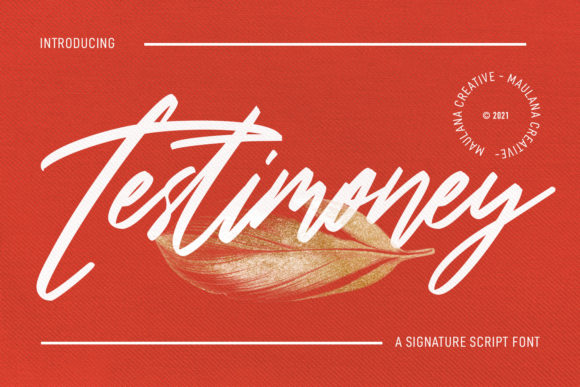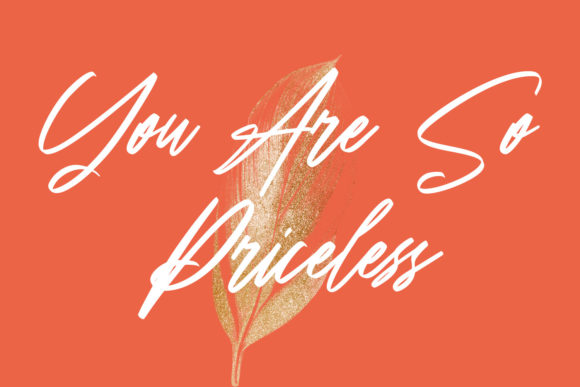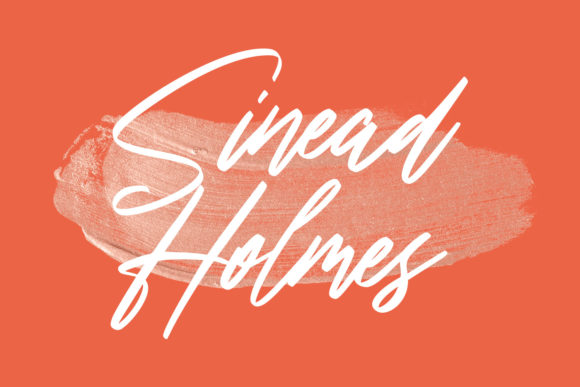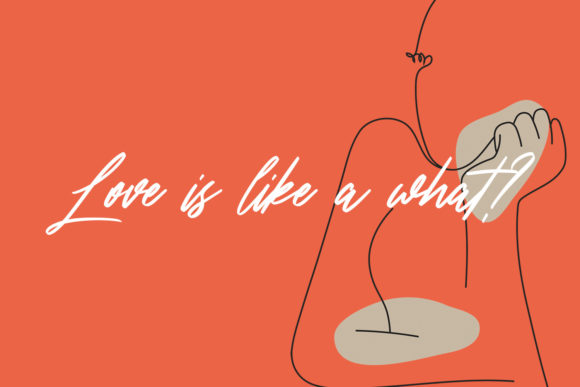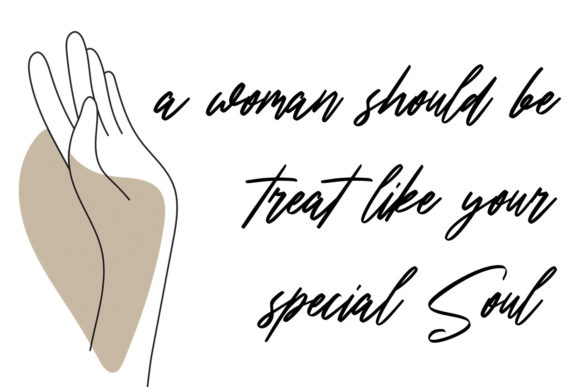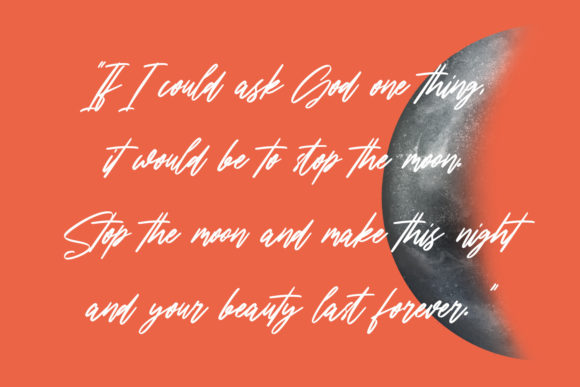
Testimoney Signature Font
About Testimoney Signature Font
Testimoney Signature is a lovely script font. Fall for its ravishing style and use it to create gorgeous wedding invitations, beautiful stationary art, eye-catching social media posts, and much more!